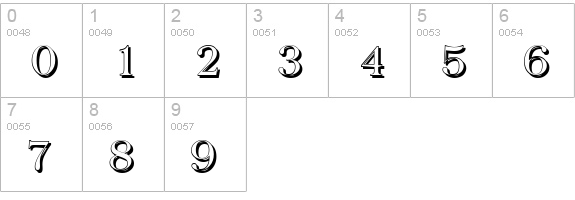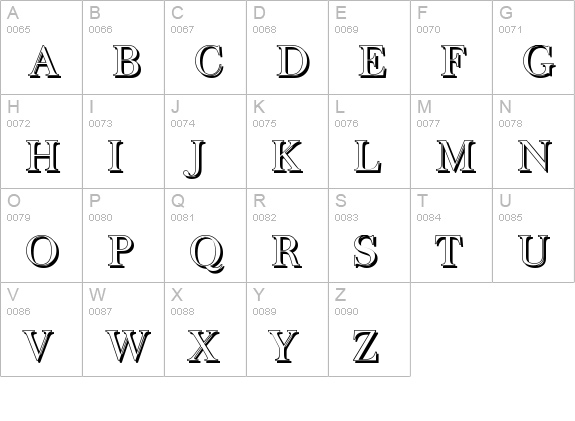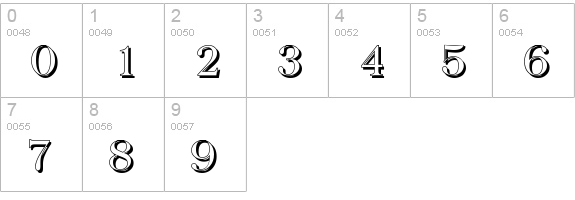
BaskervilleShadow-Light-Regular is a refined, elegant variant in the BaskervilleShadow typeface family \xE2\x80\x94 well suited to elegant body text, refined sub-headings, and luxury branding.
BaskervilleShadow-Light-Regular is a stunning and elegant font that exudes sophistication and charm. Its delicate yet bold letterforms make it perfect for adding a touch of class to any design project. The subtle shadow effect gives the font a unique dimension, making it stand out from the crowd. And the best part? BaskervilleShadow-Light-Regular is available for free download at FontsMarket.com! This means you can easily access this beautiful font and use it in your personal or commercial projects without any cost. So why wait? Elevate your designs with the timeless beauty of BaskervilleShadow-Light-Regular today!